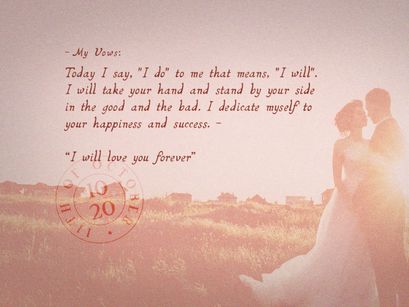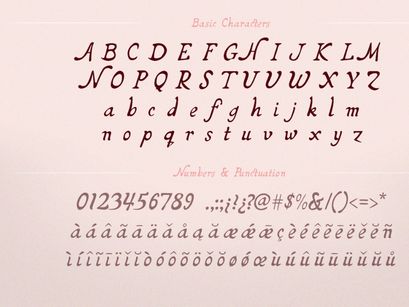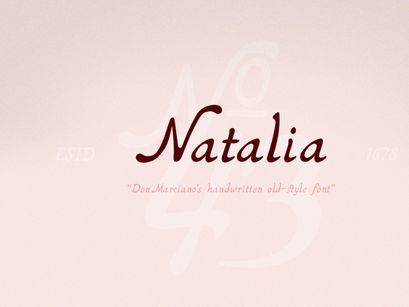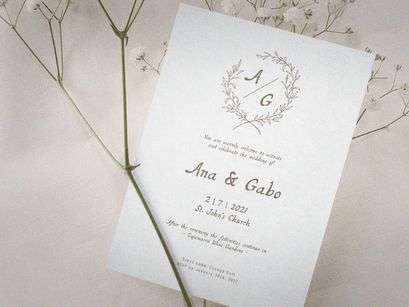
Natalia is a handwritten old style font, design for text blocks to complement a display font, to achieve a look and feel of a personal touch, or a hand made style if you will. Great for personalizing invitations that need that old English type; for those memorable moments that need special attention to detail, Natalia is the font you need. An OTF file format with a total count of 348 glyphs.